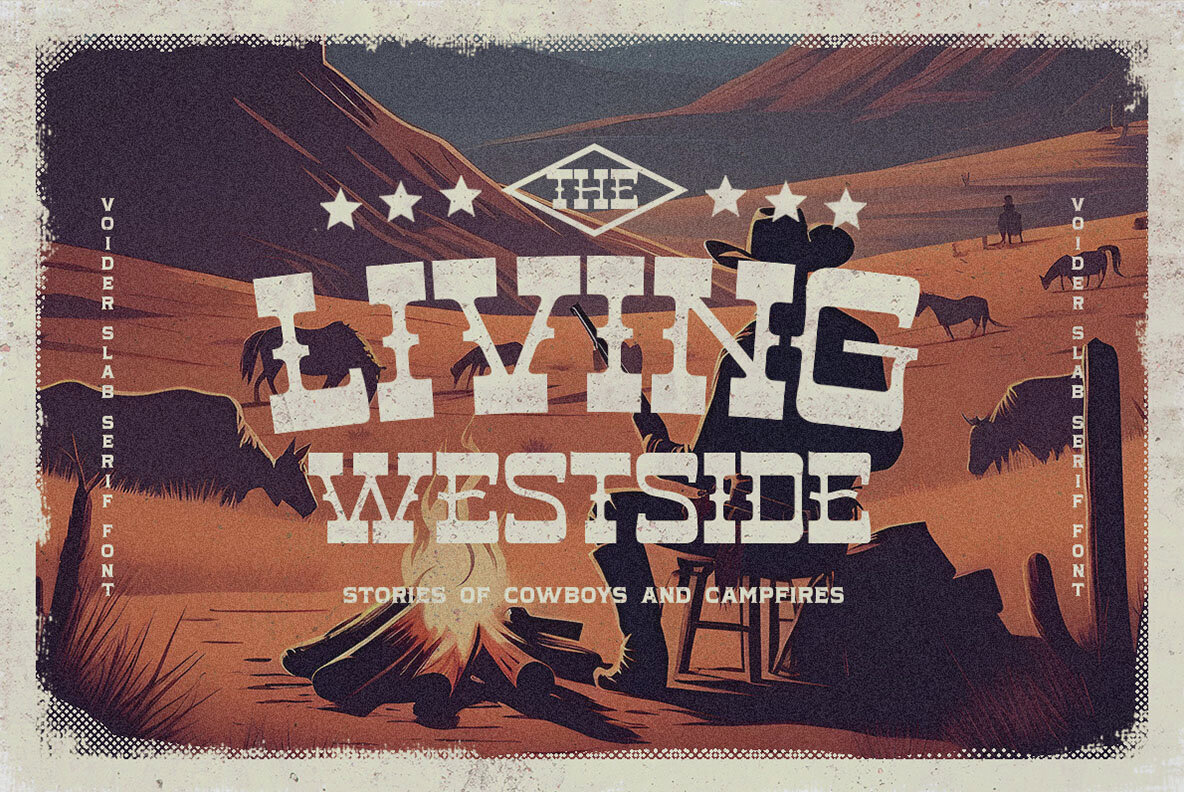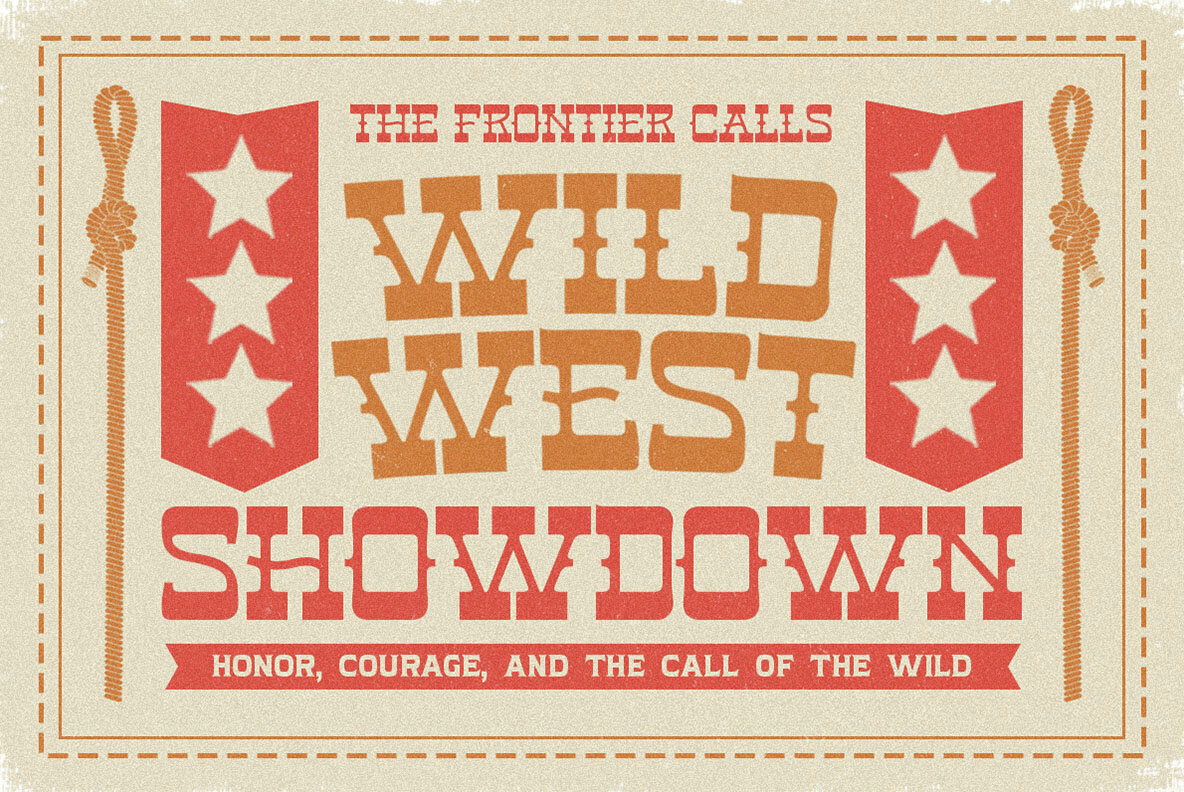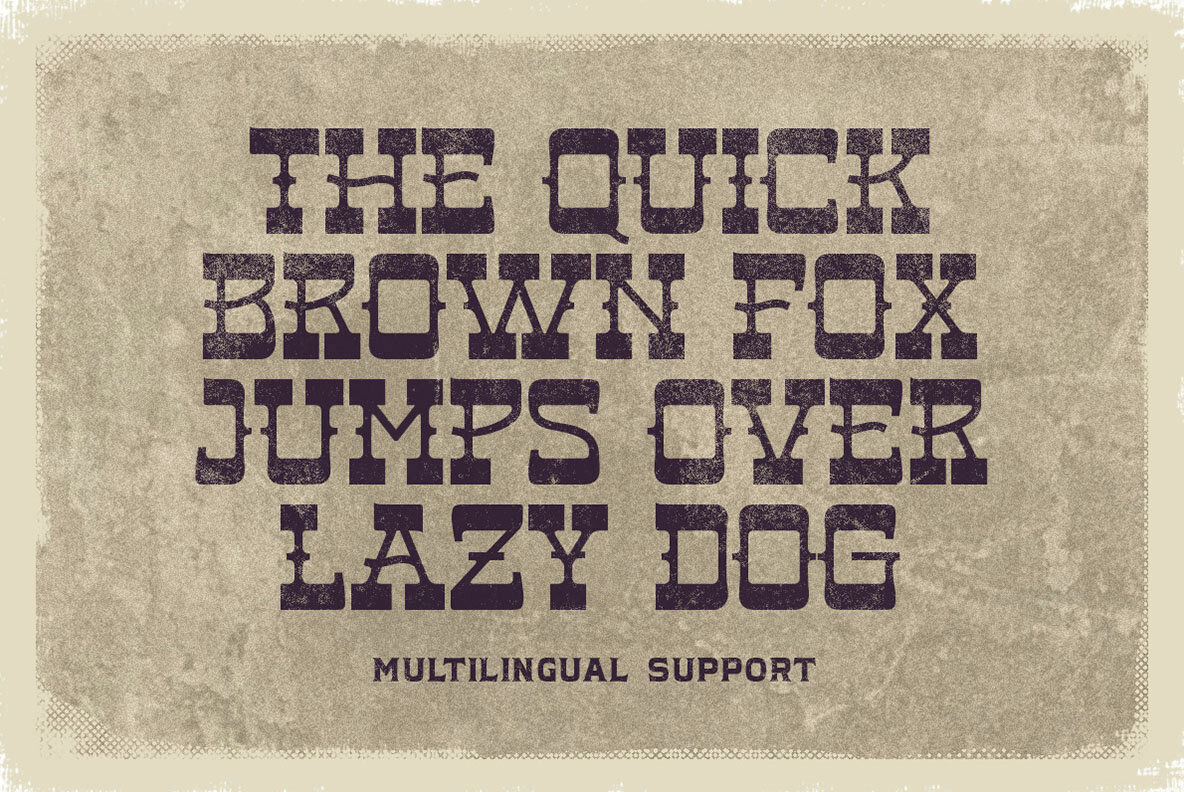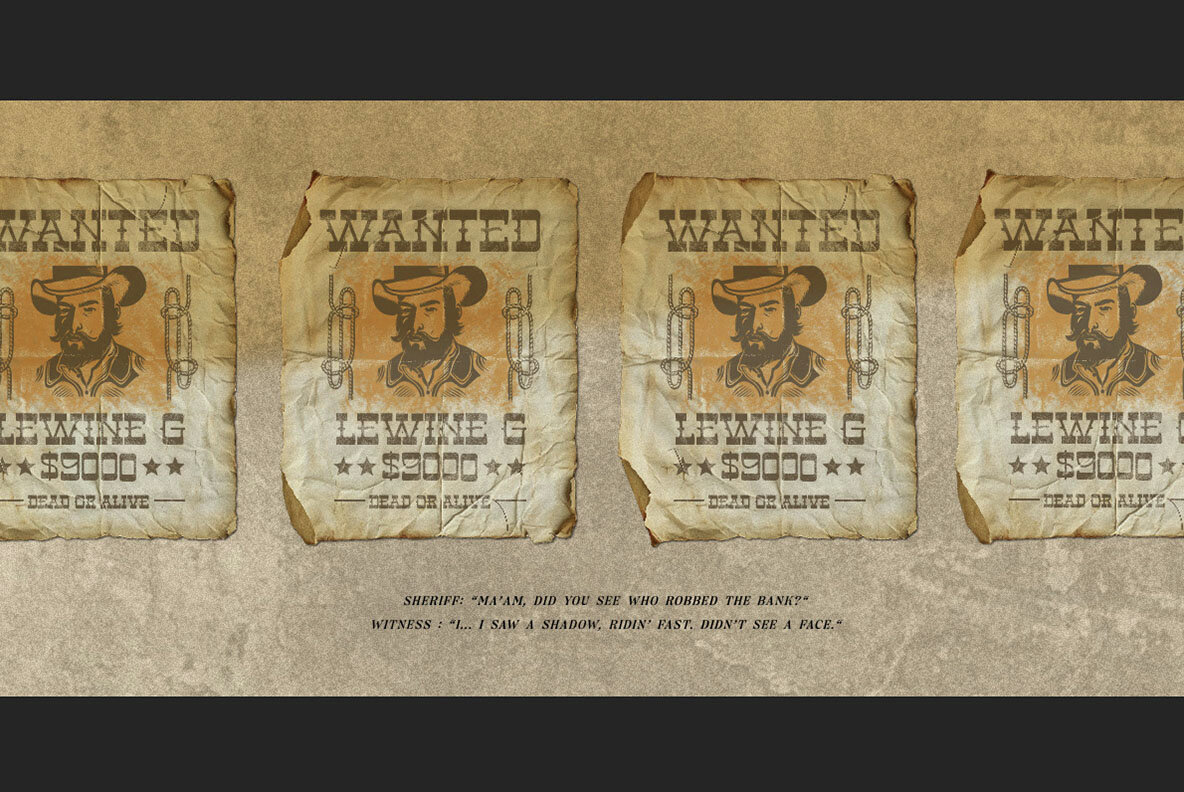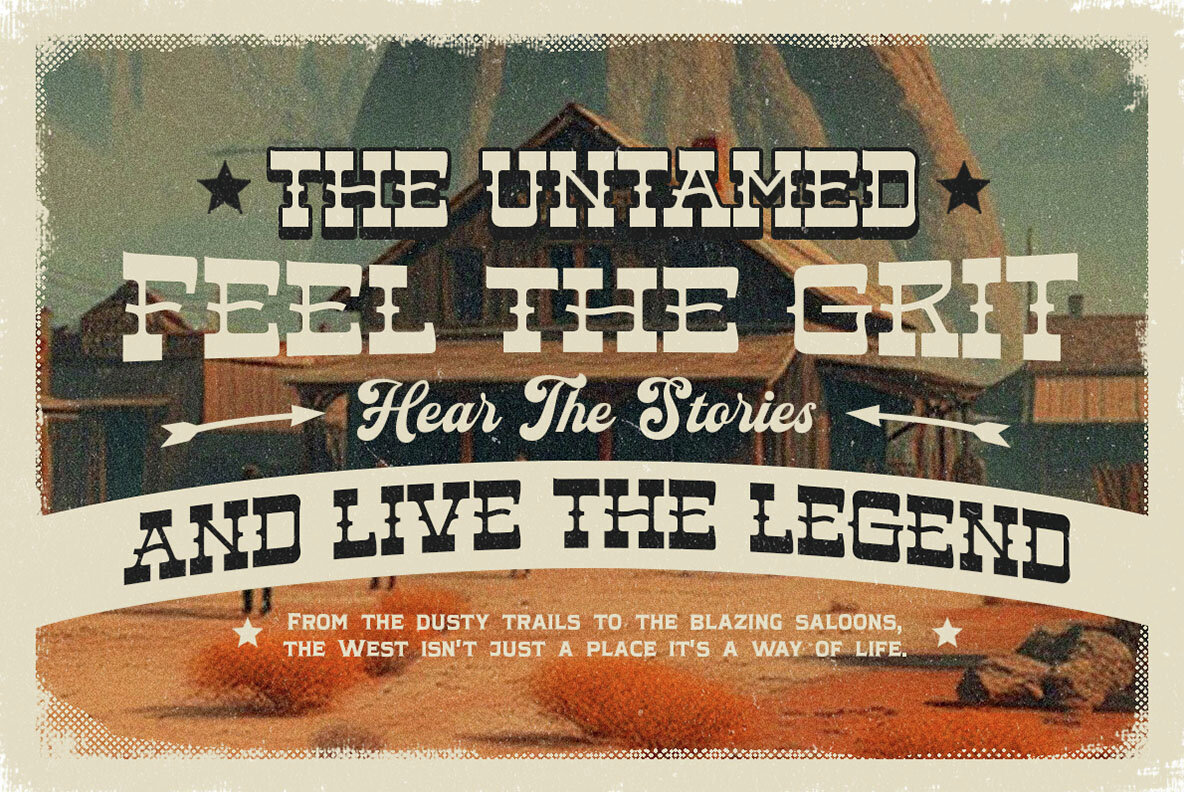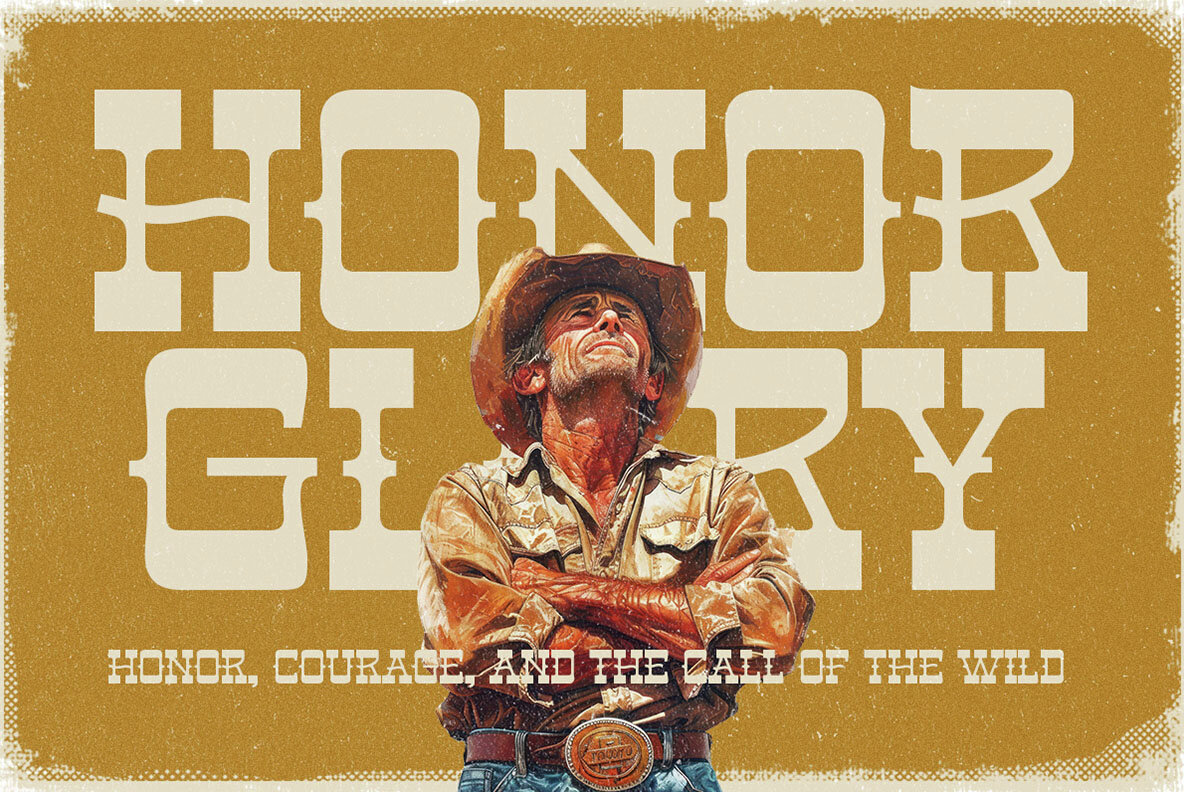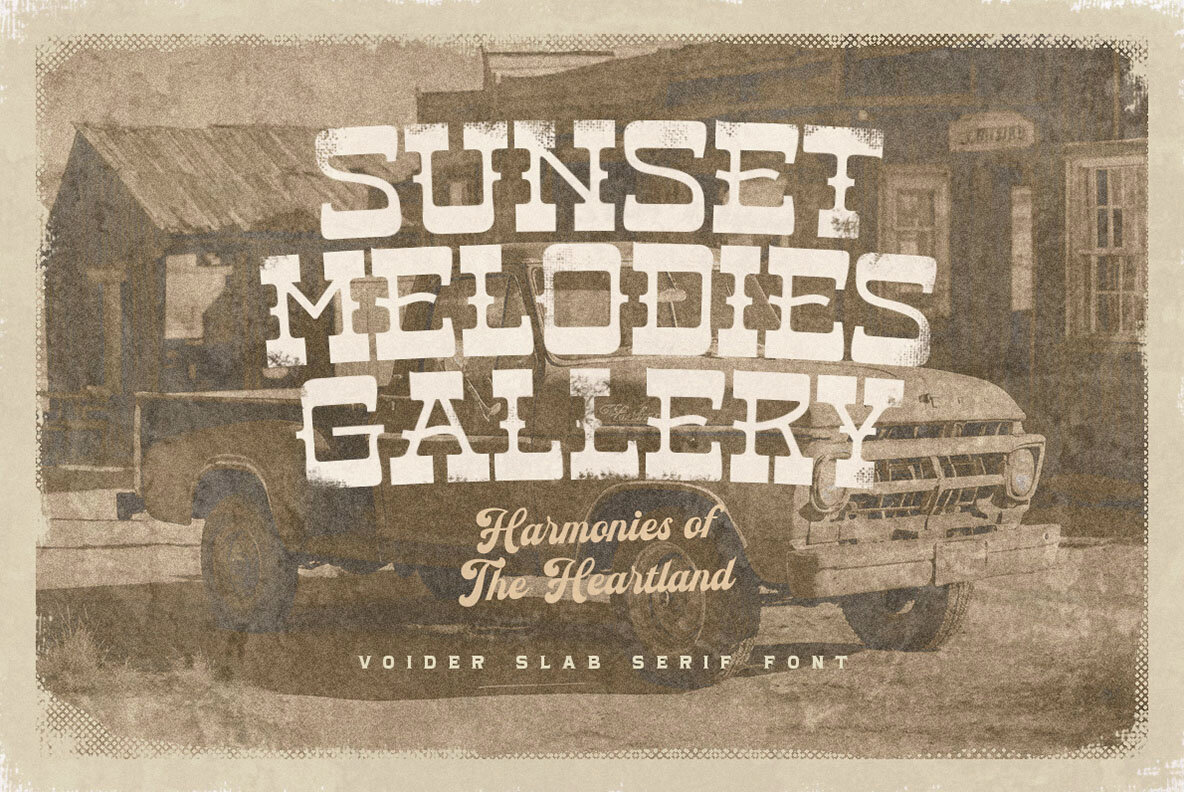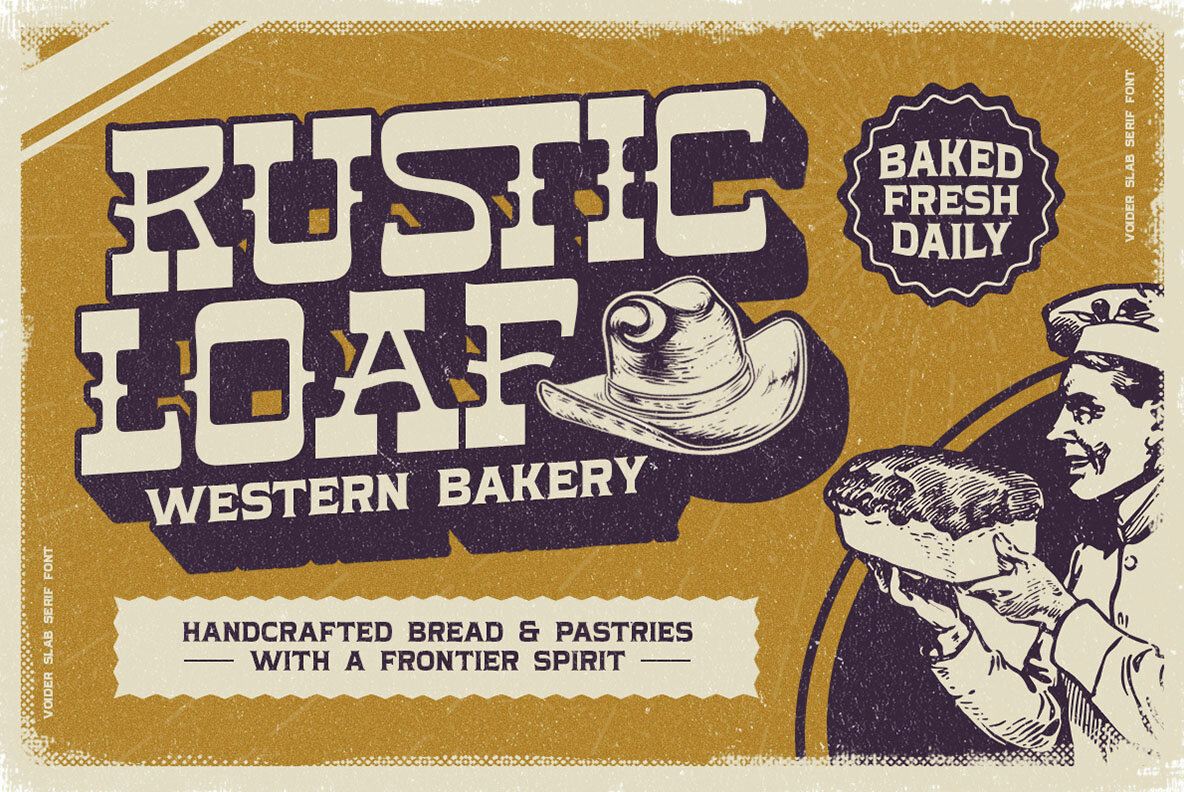
Voider Font
Voider Regular
Step into the rugged charm of the Wild West with Voider, a bold and versatile slab serif font designed to capture the essence of vintage Americana. Perfect for posters, logos, packaging, and any project that needs a dash of retro adventure, Voider brings character and grit with its distressed details and striking letterforms. Features: